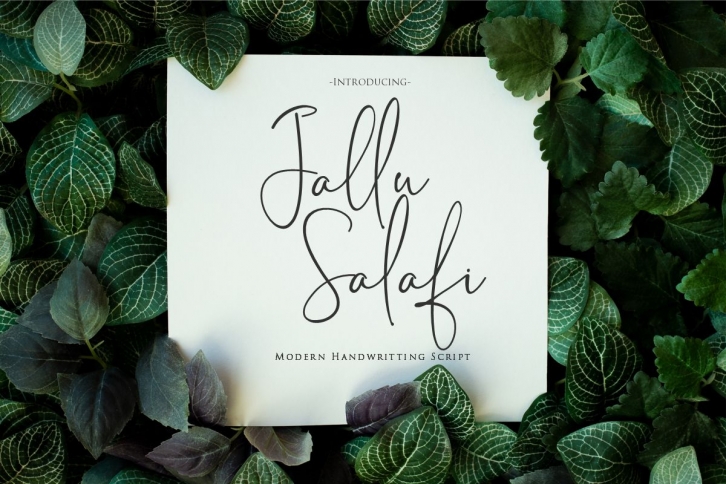
say hello to Jallu Salafi , Jallu Salafi is a unique, cool and modern handwritten font. It's hand look style makes it perfect for use in all your design projects be it logos, signatures, labels,  blog headlines,  invitation, stationery, wedding designs, social media posts, advertisements, product packaging, product designs, label, photography, watermark, special events.
Using Jallu Salafi  definitely make your text stand out.Jallu Salafi comes includes full set of gorgeous uppercase and lowercase letters, multilingual support, punctuation, 36 ligatures, alternates,  and stylisticset from ss01 to ss14  gorgeous extras from a to z and beginning and ending numerals swashes. everything can be easily accessed using software that supports OpenType. Like Adobe Indesign, Adobe Illustrator CS, Adobe Photoshop CC, and Corel Draw..